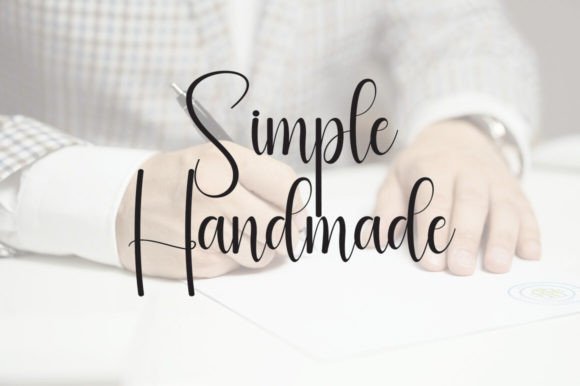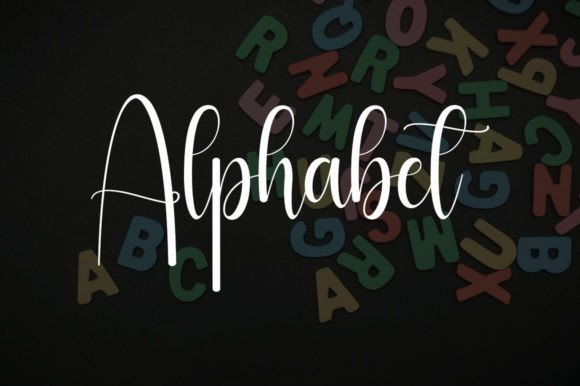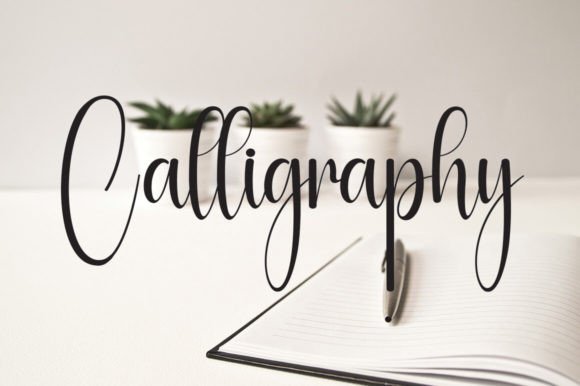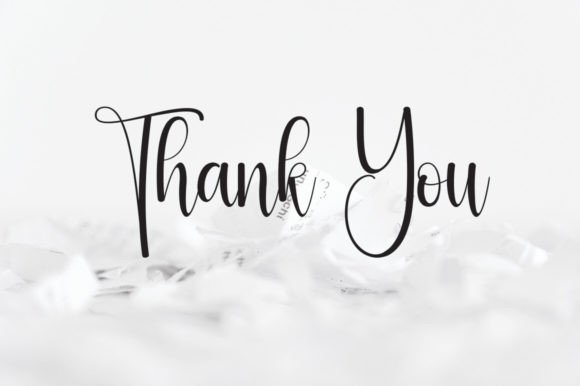
Where Creativity Meets Whimsy: Unleashing the Magic of Boho Font
Have you ever stumbled upon a beautiful, handwritten note in a quaint café, and felt instantly inspired to create something special? That’s exactly the kind of magic the Boho Font embodies. This enchantingly fluid, handwritten font is designed to bring a touch of warmth and romance to your design concepts, making it the perfect addition to any creative project.
With its delightful cursive style, the Boho Font provides an expressively joyful typographic touch that elevates your designs to a new level of sophistication. Whether you’re a seasoned designer or just starting out, this versatile font is sure to bring a unique charm to your work. By incorporating the Boho Font into your designs, you’ll be able to celebrate the beauty of handwritten expression and add a touch of whimsy to your projects.
Boho Font Key Features
- Font Style: Boho Font is a unique, hand-drawn script font with a bohemian feel, perfect for creative and artistic projects.
- Character Count: The font includes a wide range of characters, including uppercase and lowercase letters, numbers, punctuation, and special characters, with approximately 300 glyphs.
- Unique Characteristics: Boho Font features a distinctive, flowing script style with intricate details and flourishes, making it ideal for adding a touch of elegance and sophistication to designs.
Designer Review: Boho Font
Overall, I think the Boho Font has some great qualities that make it a unique addition to any design project. ✨ One of the standout features is its eclectic and free-spirited vibe, which is perfect for creative or artistic applications. The font’s irregularities and imperfections add a touch of authenticity and human touch, making it feel more relatable and engaging.
Another aspect that works well is the Boho Font’s versatility. ✨ It’s suitable for a wide range of use cases, from headlines and titles to body text, and even for branding and logos. The font’s flexibility makes it an excellent choice for designers who need a font that can adapt to different contexts and styles.
- ⚠️ The Boho Font may not be suitable for formal or corporate designs, as its irregularities and imperfections may come across as unprofessional.
- ⚠️ The font may be difficult to read in certain contexts, particularly in small sizes or when used for large blocks of text.
In conclusion, the Boho Font is a great choice for designers who need a unique and eclectic font that can add a touch of personality to their projects. While it may have some limitations, its versatility and adaptability make it a valuable addition to any design toolkit.
Getting the Most Out of Boho Font
Here are some tips for getting the most out of the Boho font:
- Use the font in combination with other creative fonts to add visual interest.
- Experiment with different font sizes, colors, and styles to achieve the desired look.
- Use the font in conjunction with images and graphics to create a cohesive design.
The Boho font is perfect for:
- Designing invitations and event materials.
- Creating social media graphics and promotional materials.
- Adding a touch of elegance and sophistication to wedding and baby shower invitations.
- Choose a soft, pastel color palette to complement the bohemian vibe.
- Combine Boho Font with a hand-drawn illustration or a watercolor design to add texture and visual interest.
- Use a subtle gradient or texture effect to give the invitation a romantic, whimsical feel.
Boho Font Creative Project Ideas
Project 1: Boho Chic Wedding Invitations
Create a unique and elegant wedding invitation design using Boho Font. This font style adds a touch of bohemian charm to any invitation.
Project 2: Boho-Inspired Travel Journal
Create a travel journal that captures the essence of a bohemian lifestyle using Boho Font. This font style adds a touch of free-spirited adventure to any travel journal.